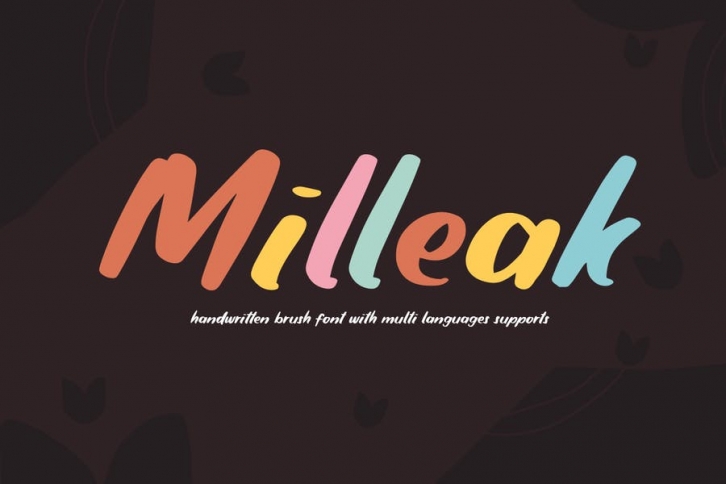
Milleak is a quick handwritten brush font, this font have a strong shape and bold. This font is very useful for any casual design. This font also includes the multi-language from western Europe and central Europe. Support at mac and windows, so please enjoy this font and make some great artwork with Milleak.